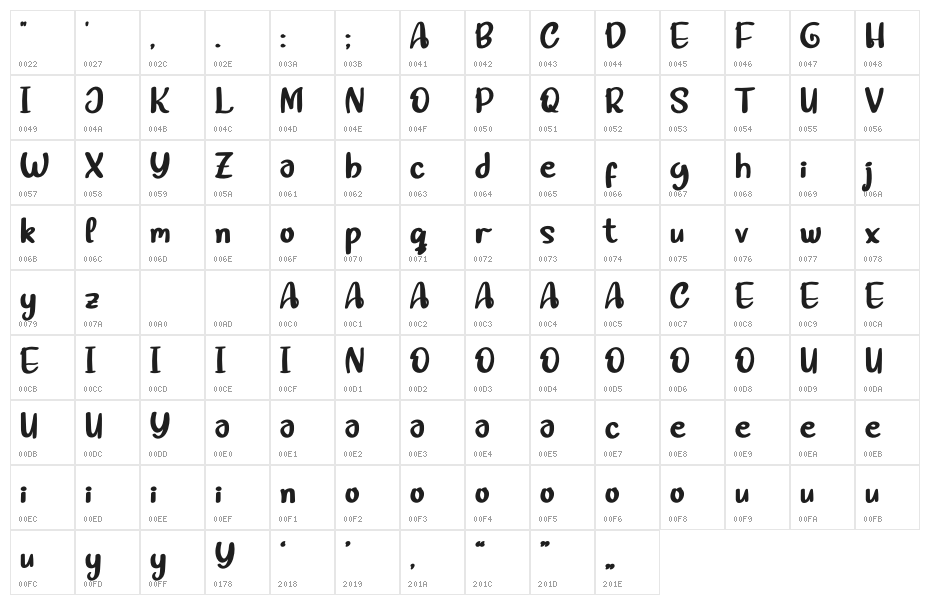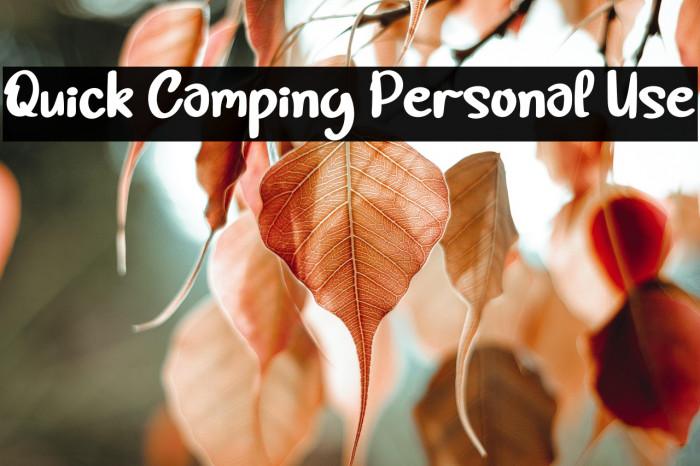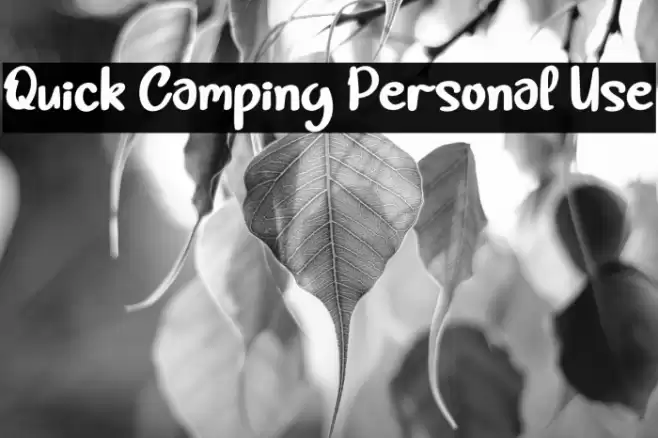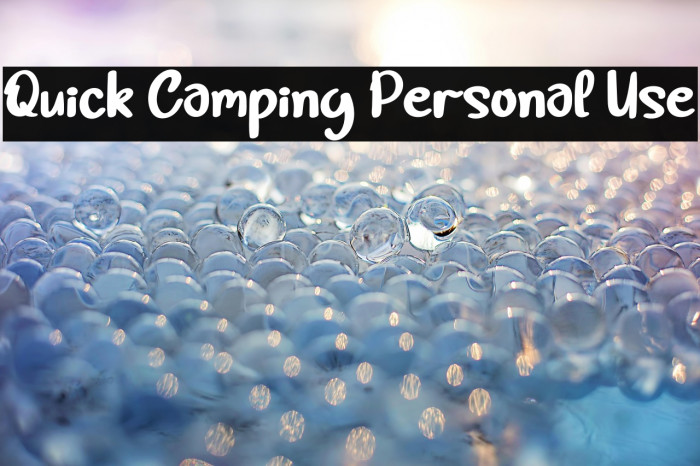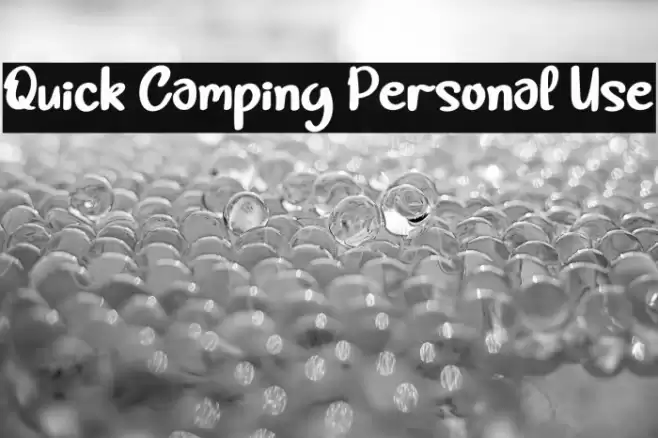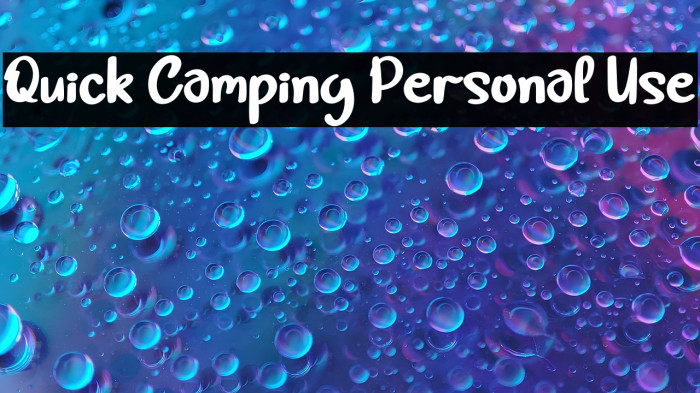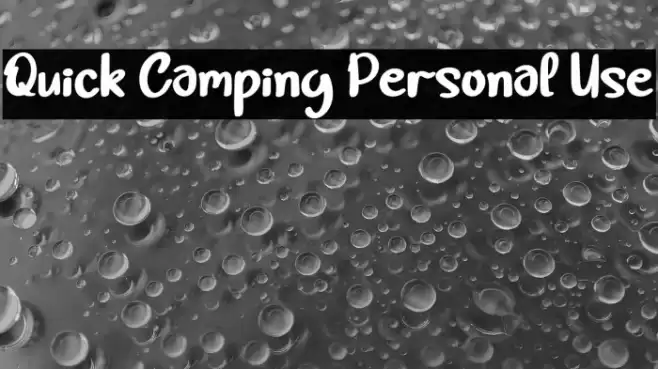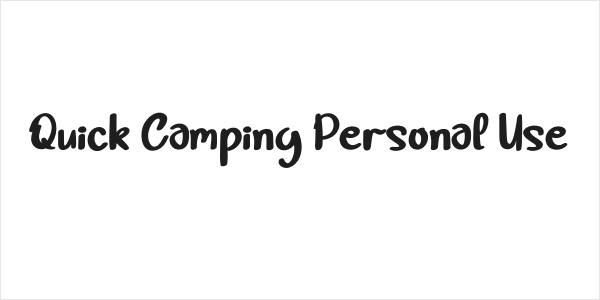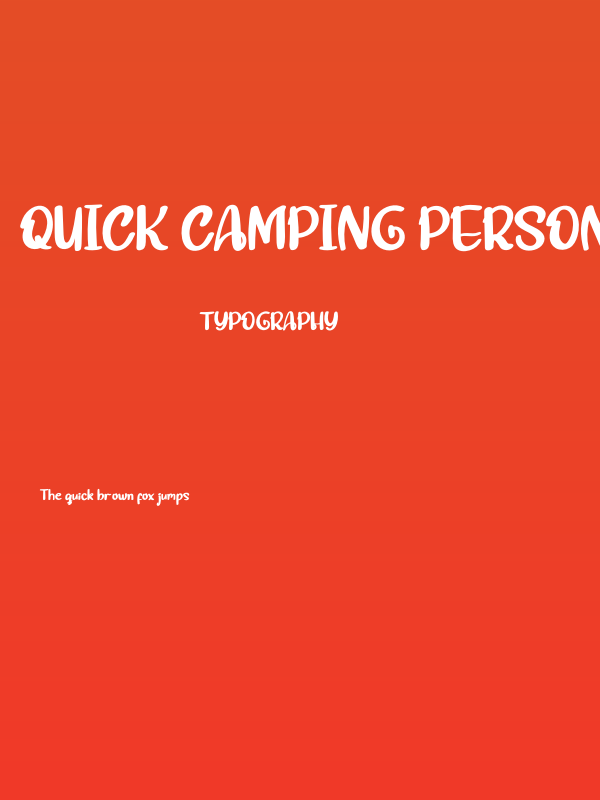
Quick Camping Personal Use Font
Quick Camping Personal Use Description
This playful and bold font features a handwritten style with a casual and friendly appearance. The letters are rounded and slightly irregular, giving it a whimsical and approachable feel. The uppercase and lowercase letters maintain a consistent style, with a noticeable thickness that adds to its boldness. The font lacks special characters and numbers, focusing solely on the alphabet. Its unique charm makes it suitable for informal and creative projects.
| Proposed Projects | Ideal for greeting cards, children's books, playful branding, and DIY projects. |